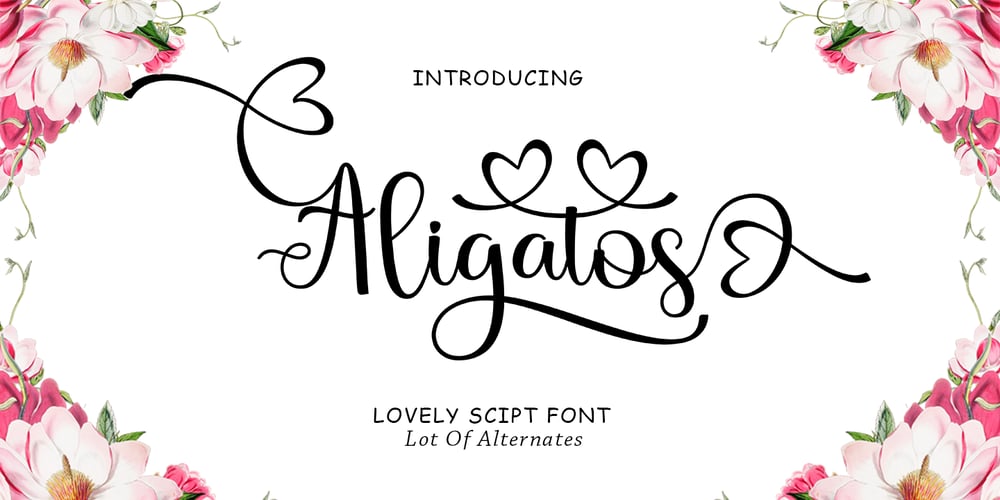
Aligatos Font Family was designed by Teuku Bustami and published by TM Type. Aligatos contains 1 styles and family package options. Aligatos is a fresh and lovely script font suitable for branding, logo, poster, wedding invitation and more. Fall for its ravishing style and use it to create gorgeous designs. This font is PUA encoded which means you can access all glyphs and swashes with ease!